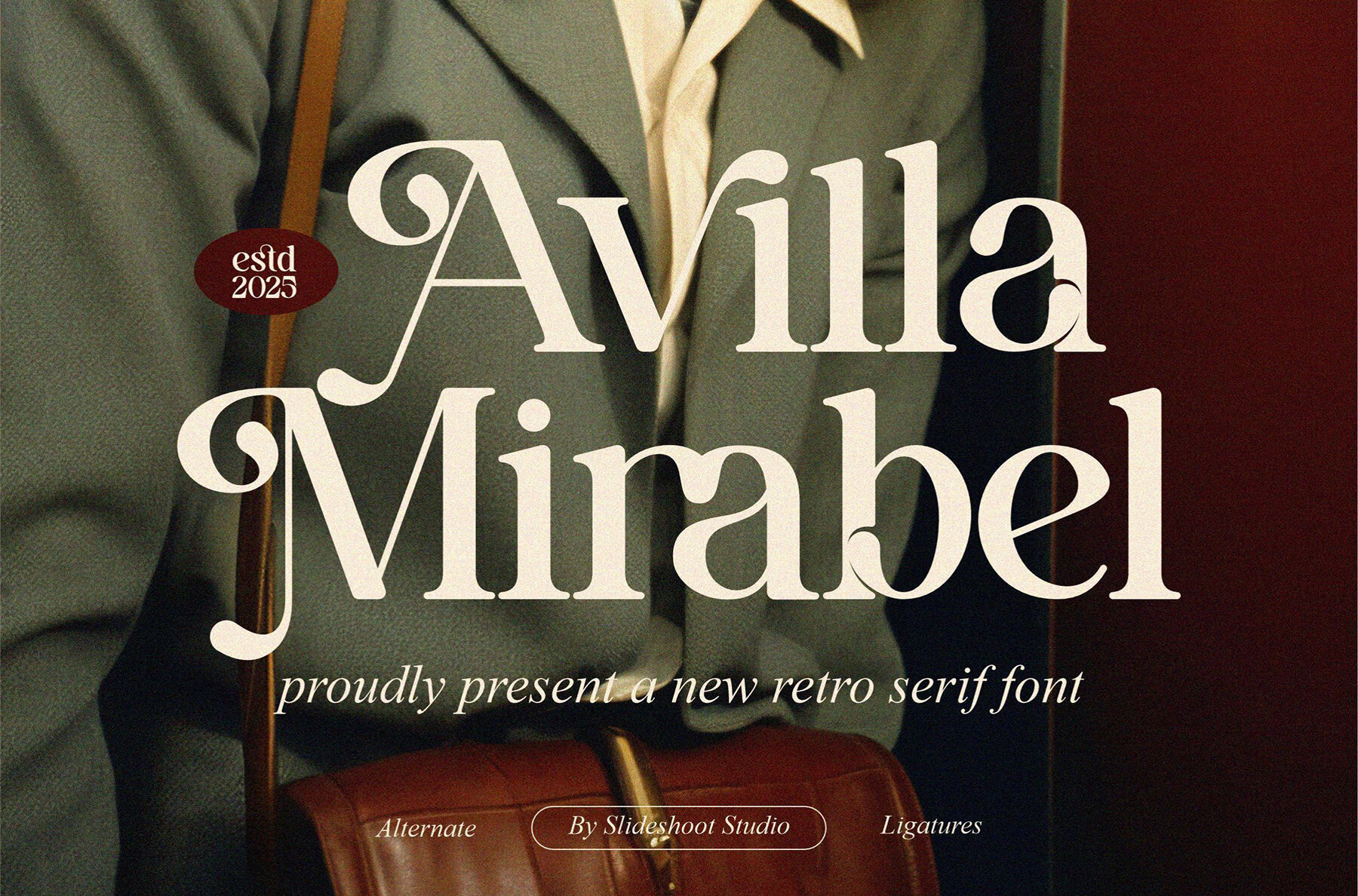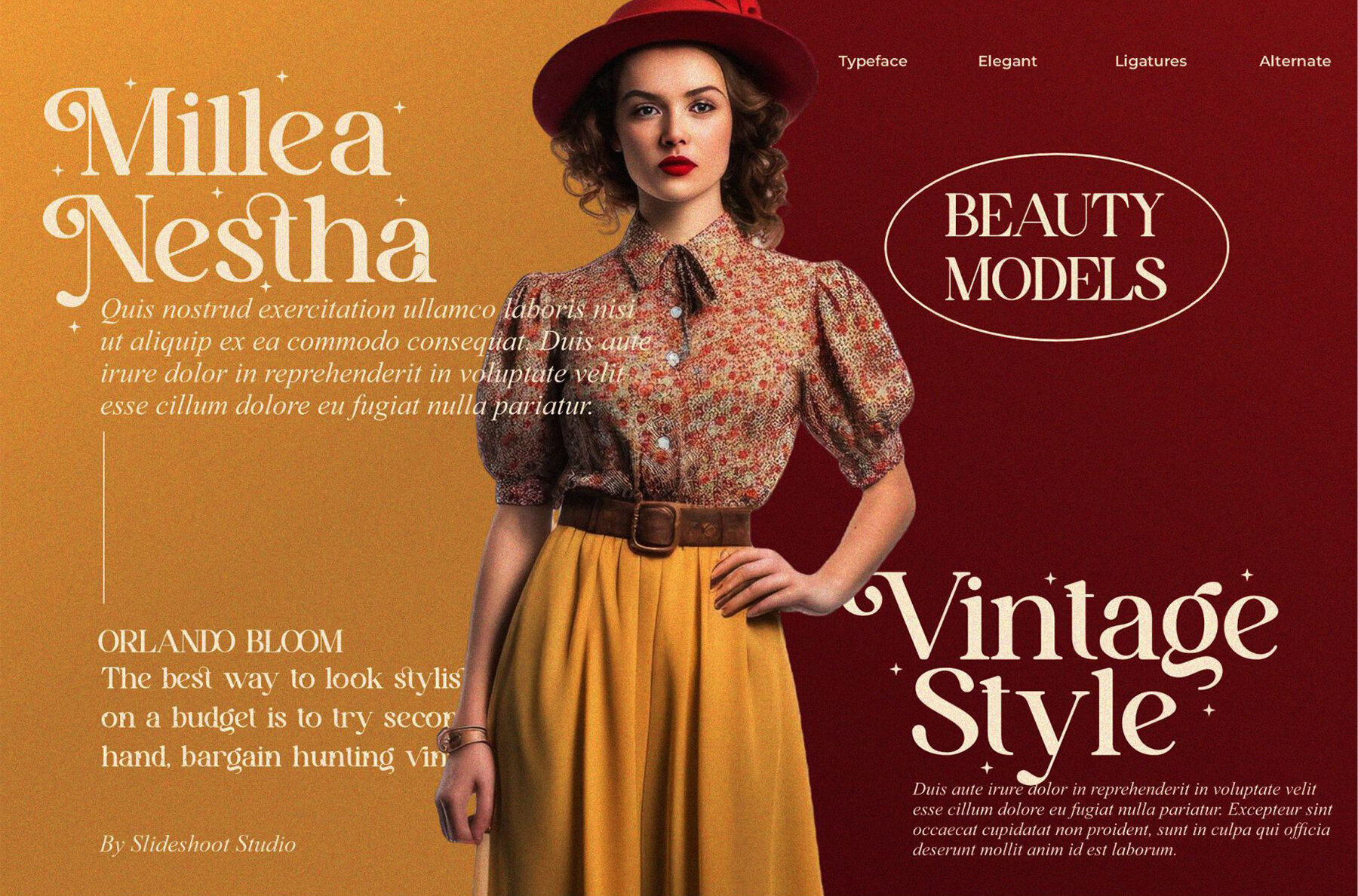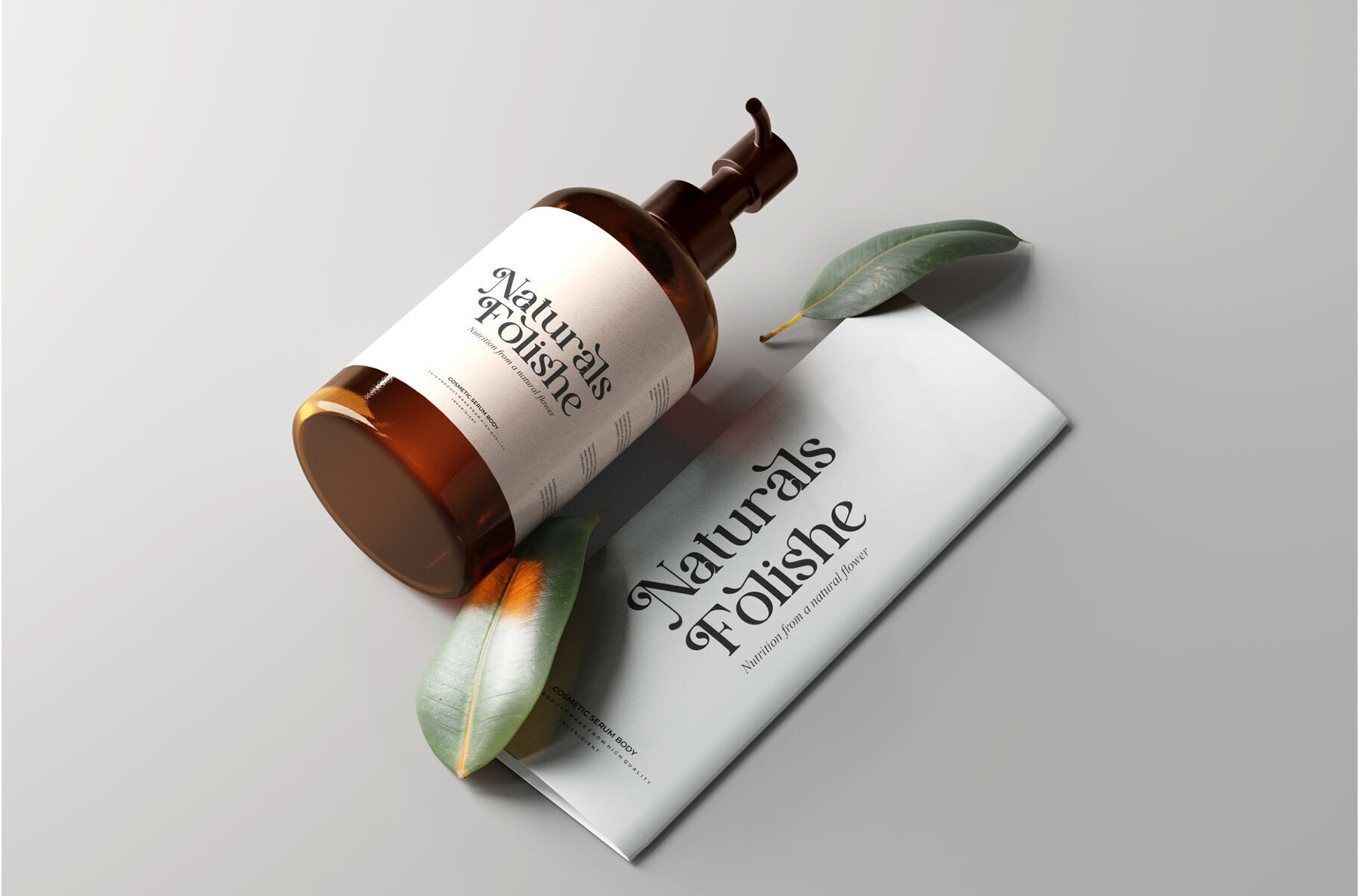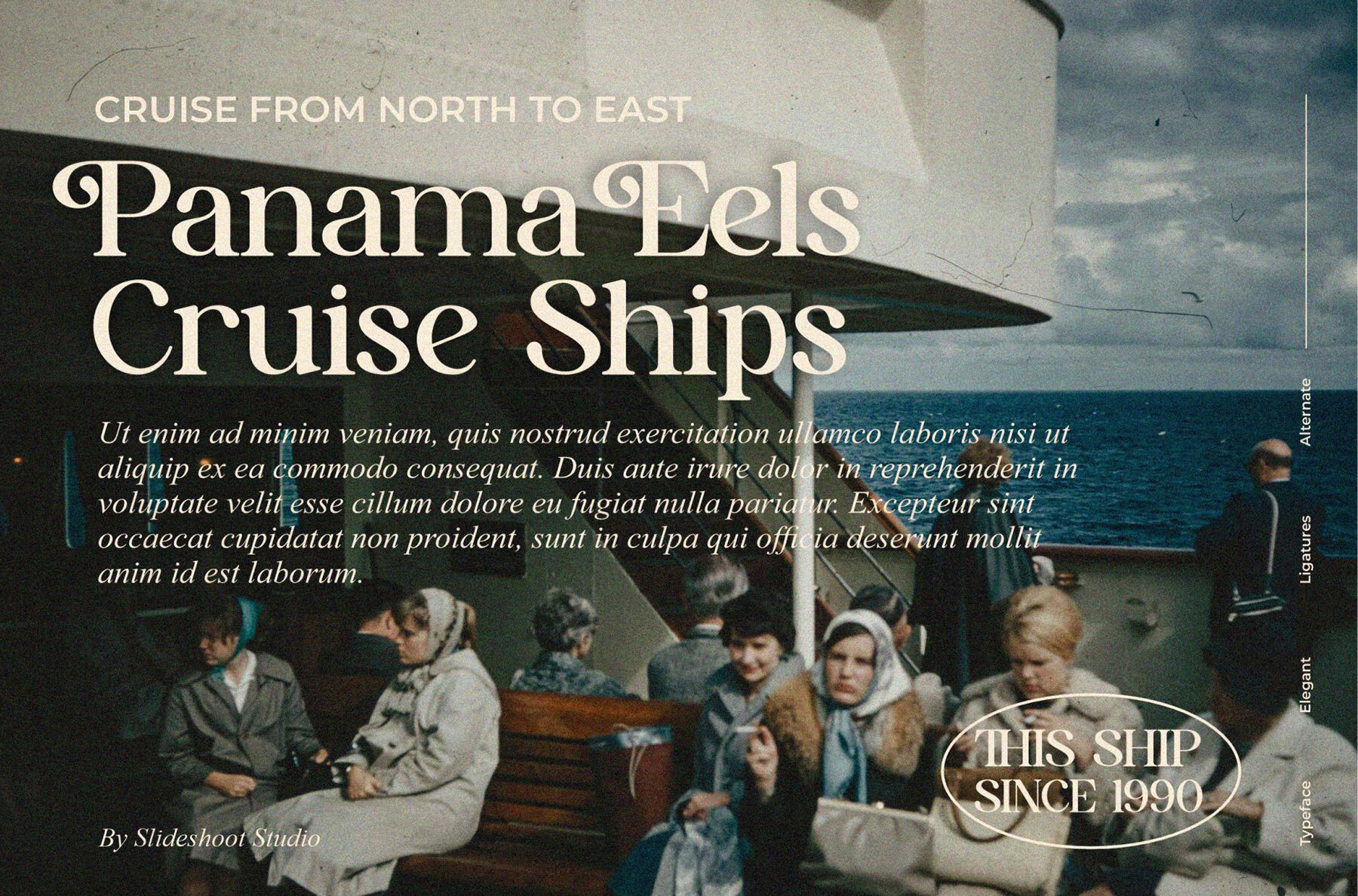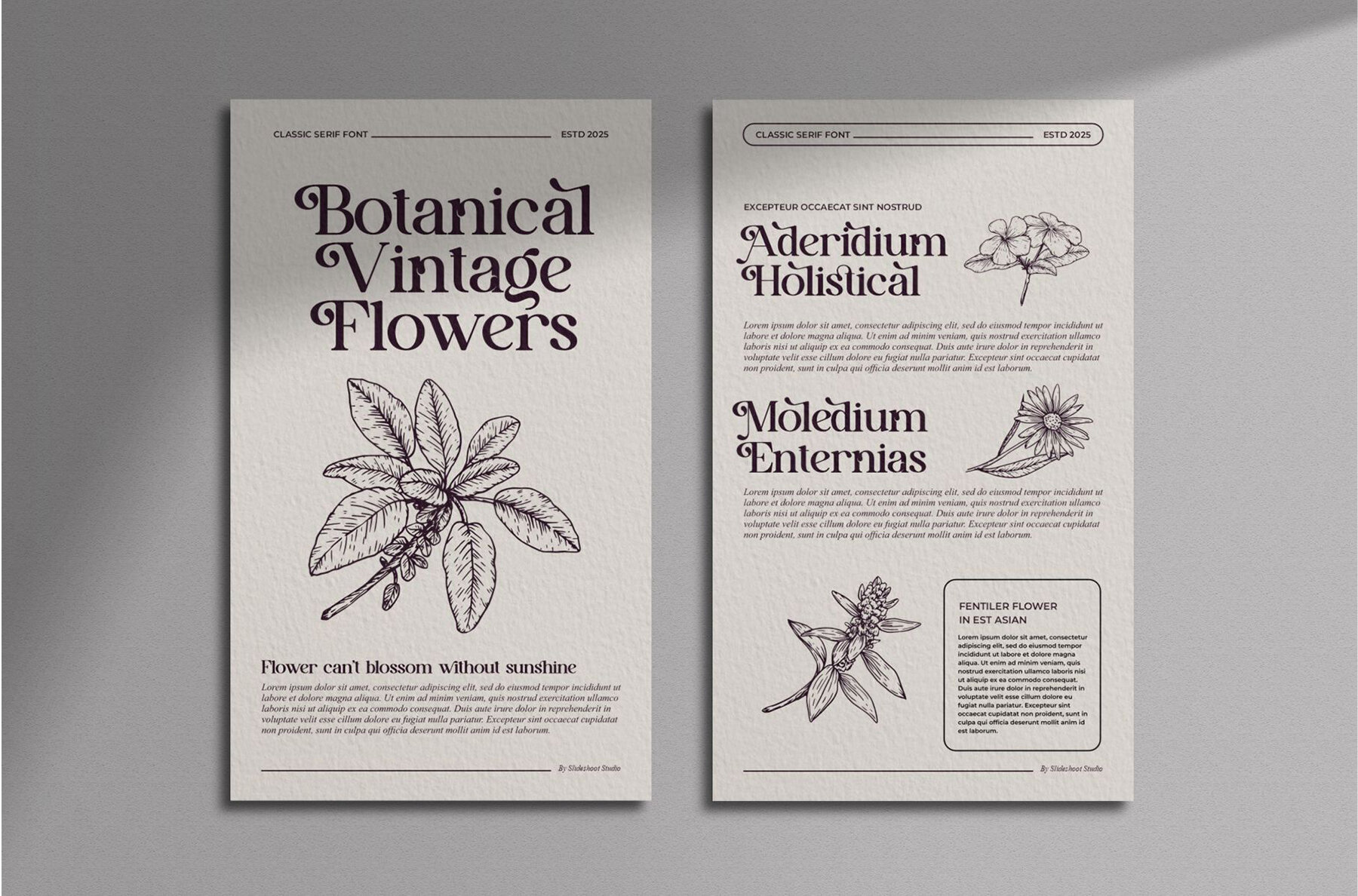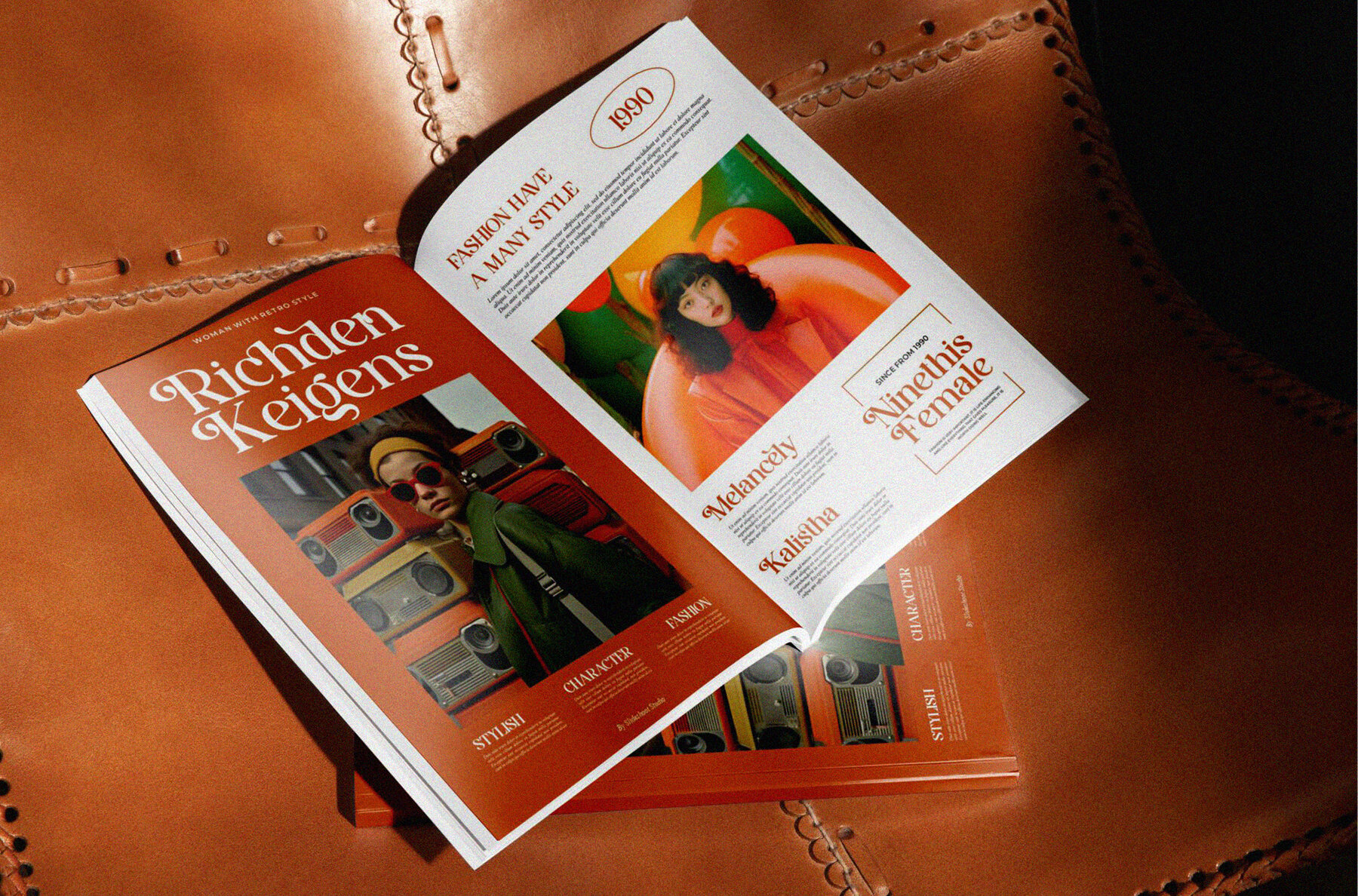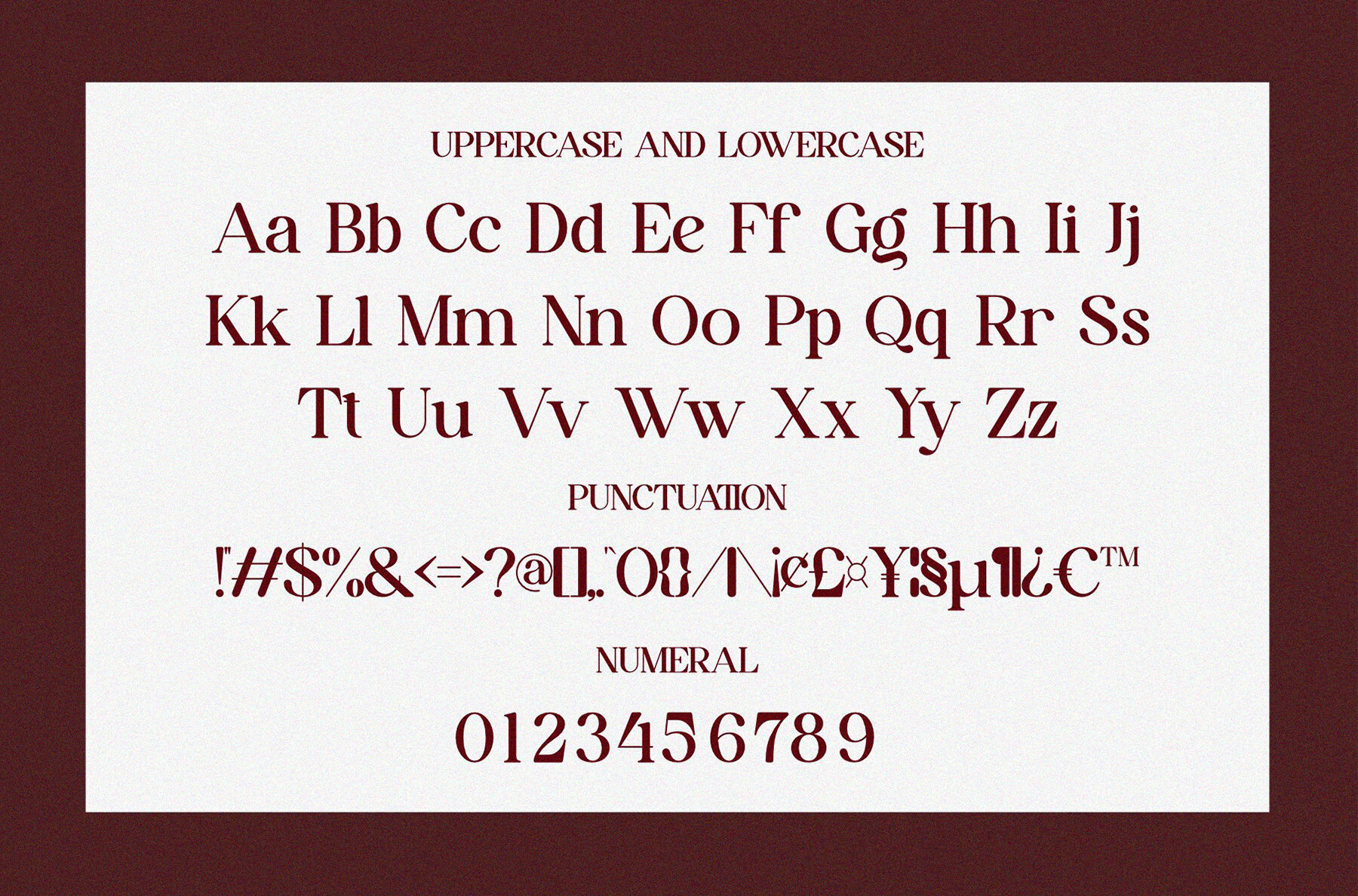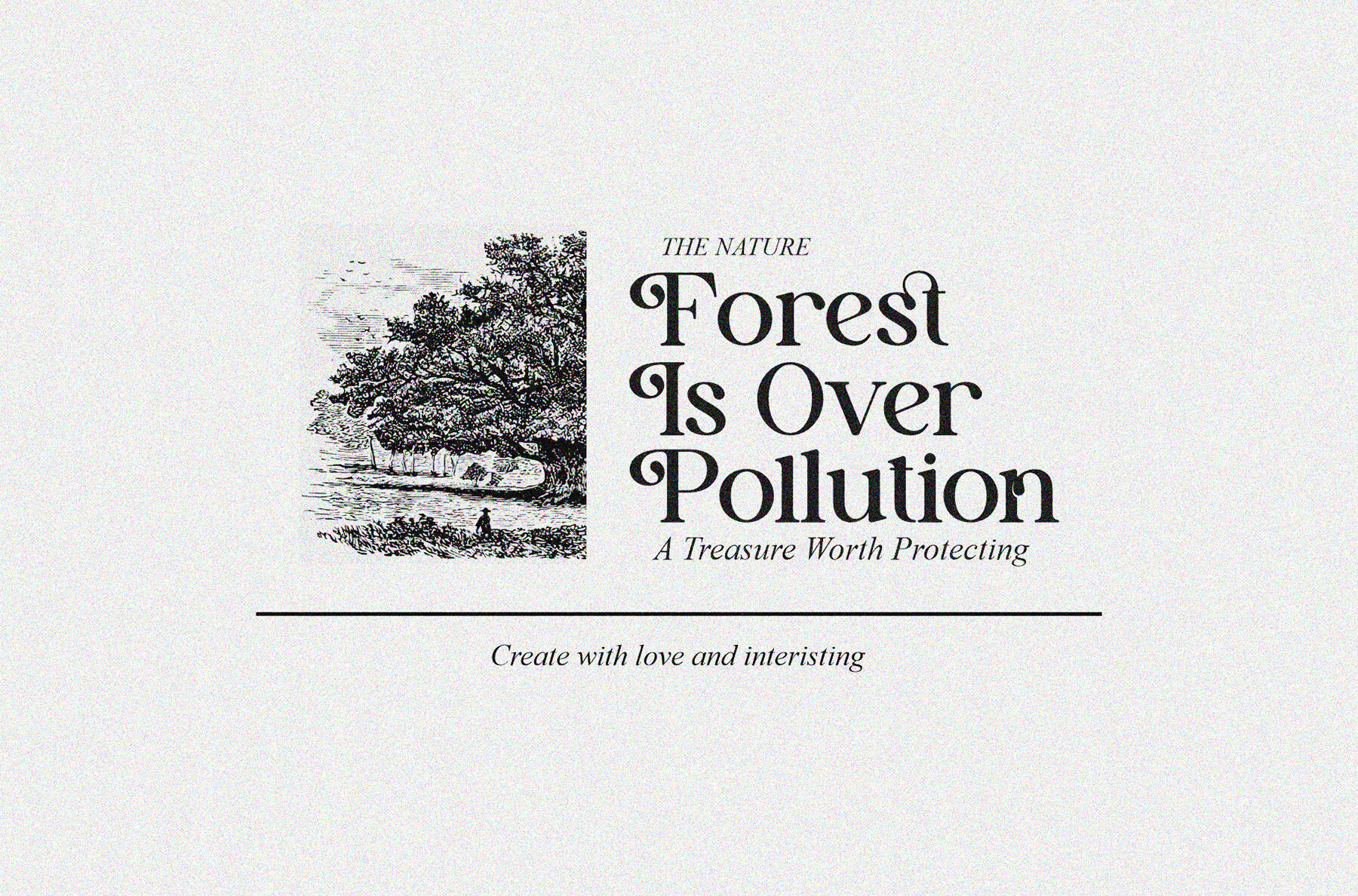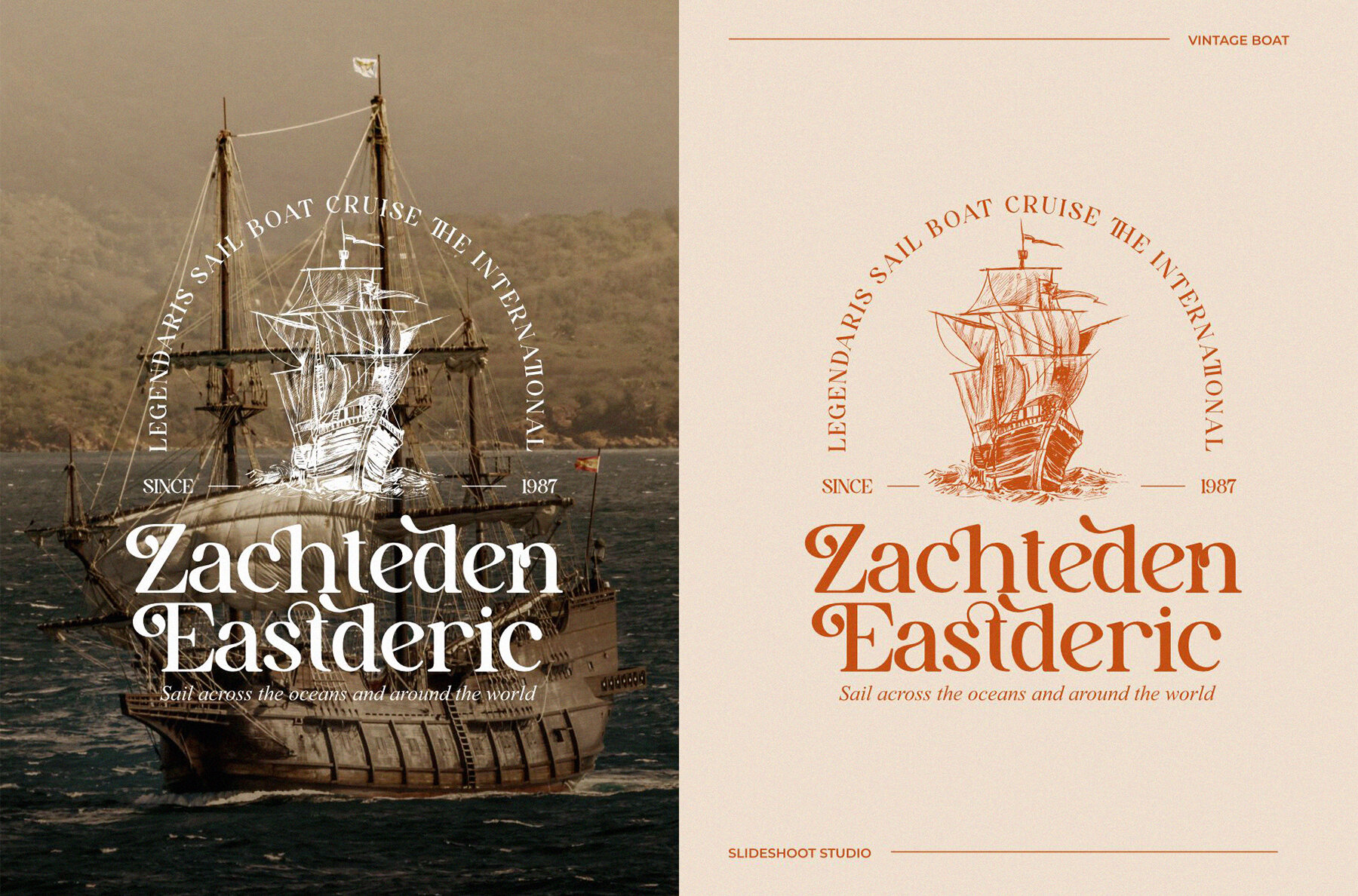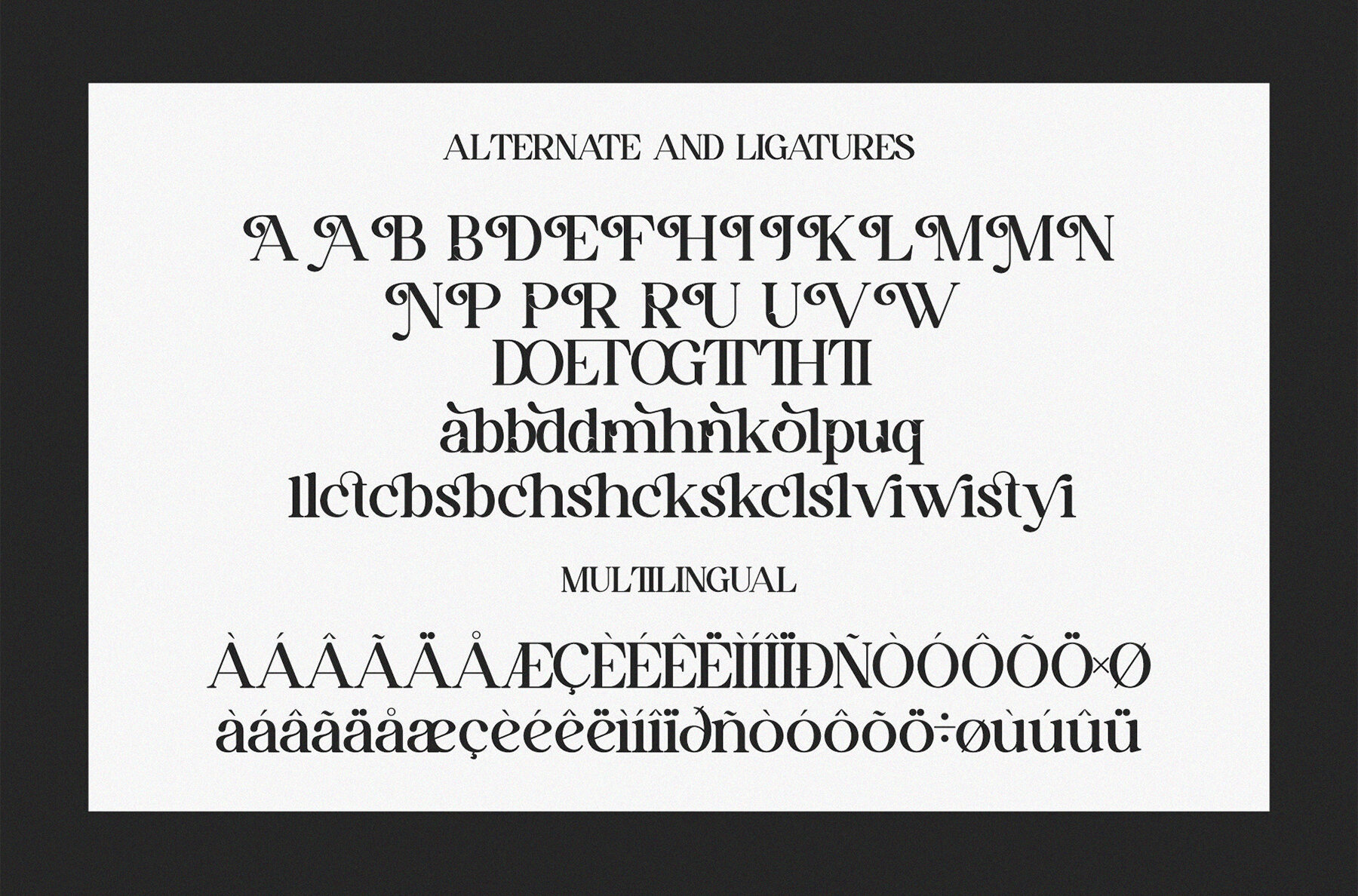
Avilla Mirabel Font
Avilla Mirabel Regular
Avilla Mirabel Serif is a sophisticated vintage serif font, ideal for branding and logo projects. With its elegant character, this font seamlessly fits a variety of design needs, including invitation cards, unique logos, movie titles, business cards, book covers, and brand identities. Avilla Mirabel’s smooth serif style infuses a touch of vintage charm while offering modern functionality.